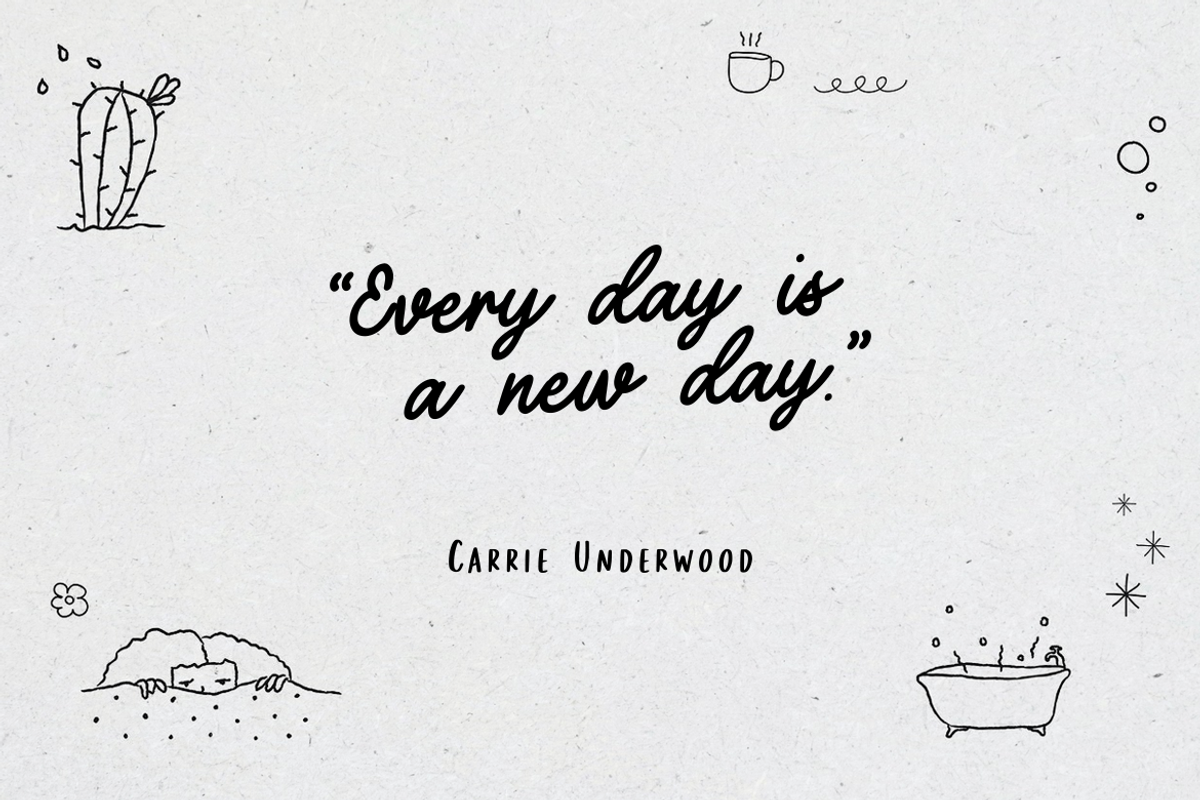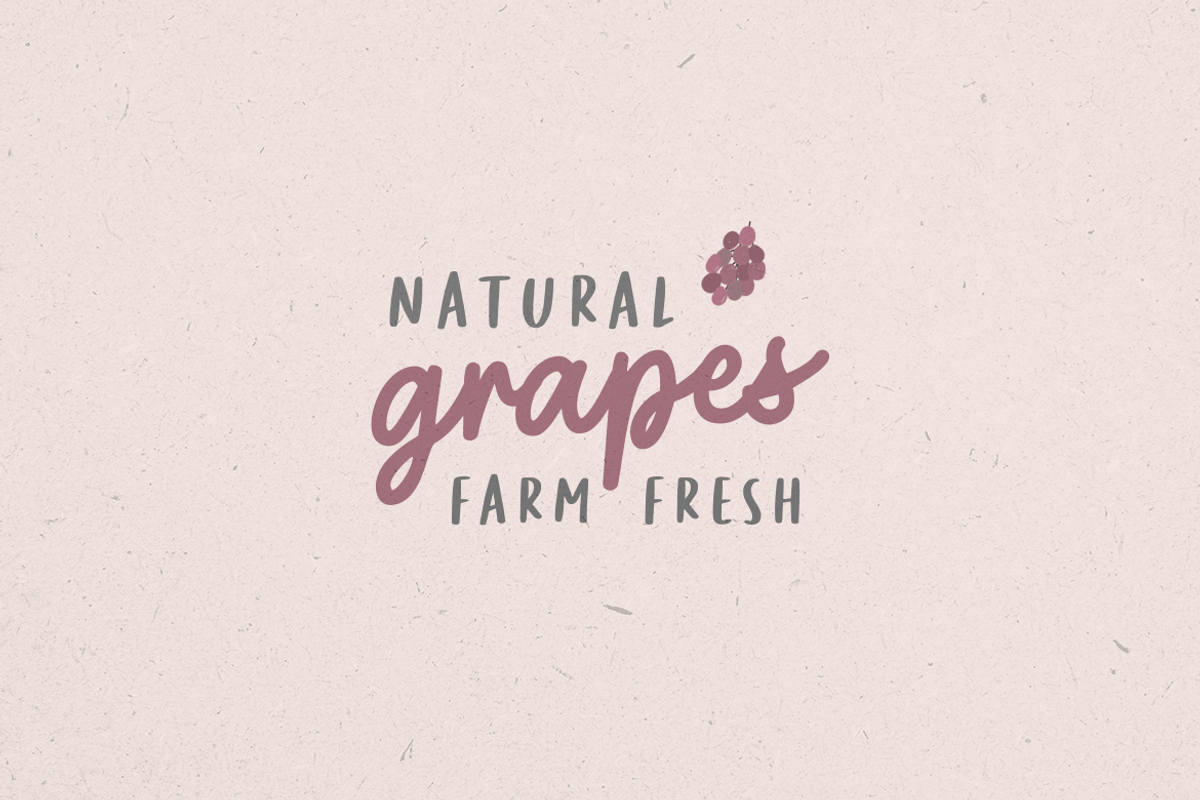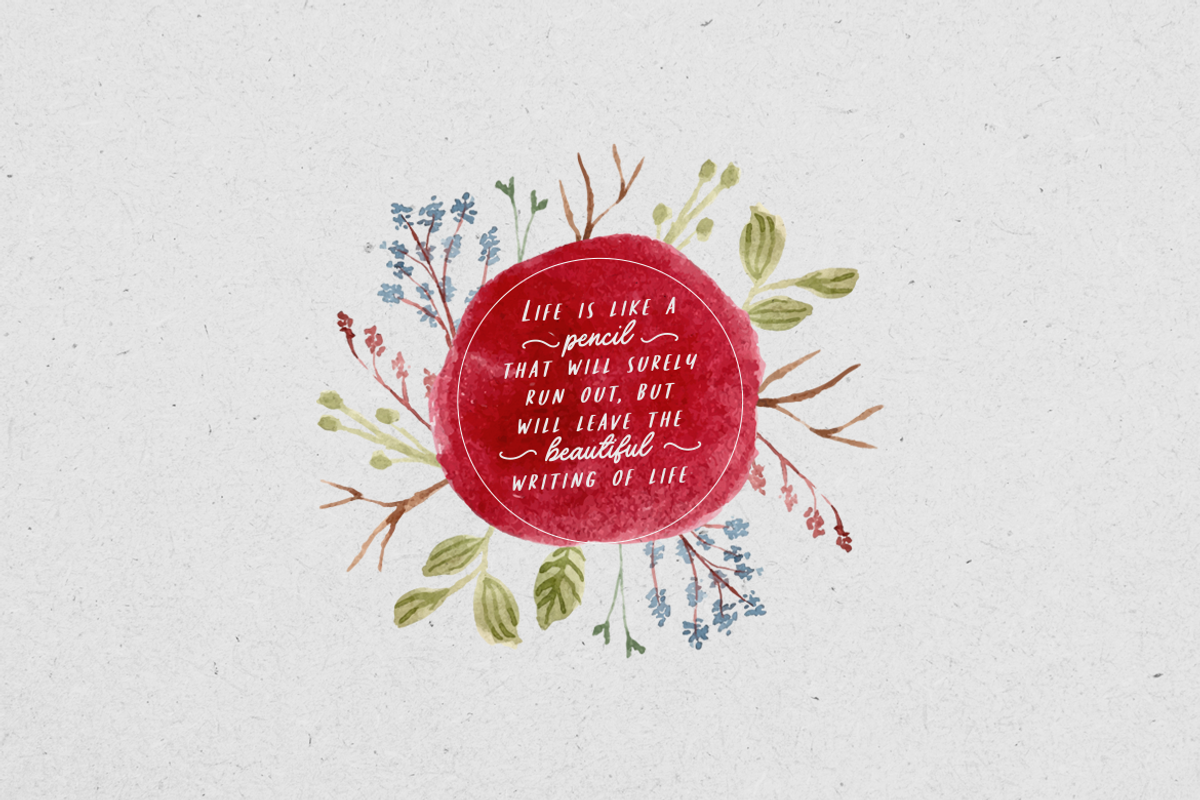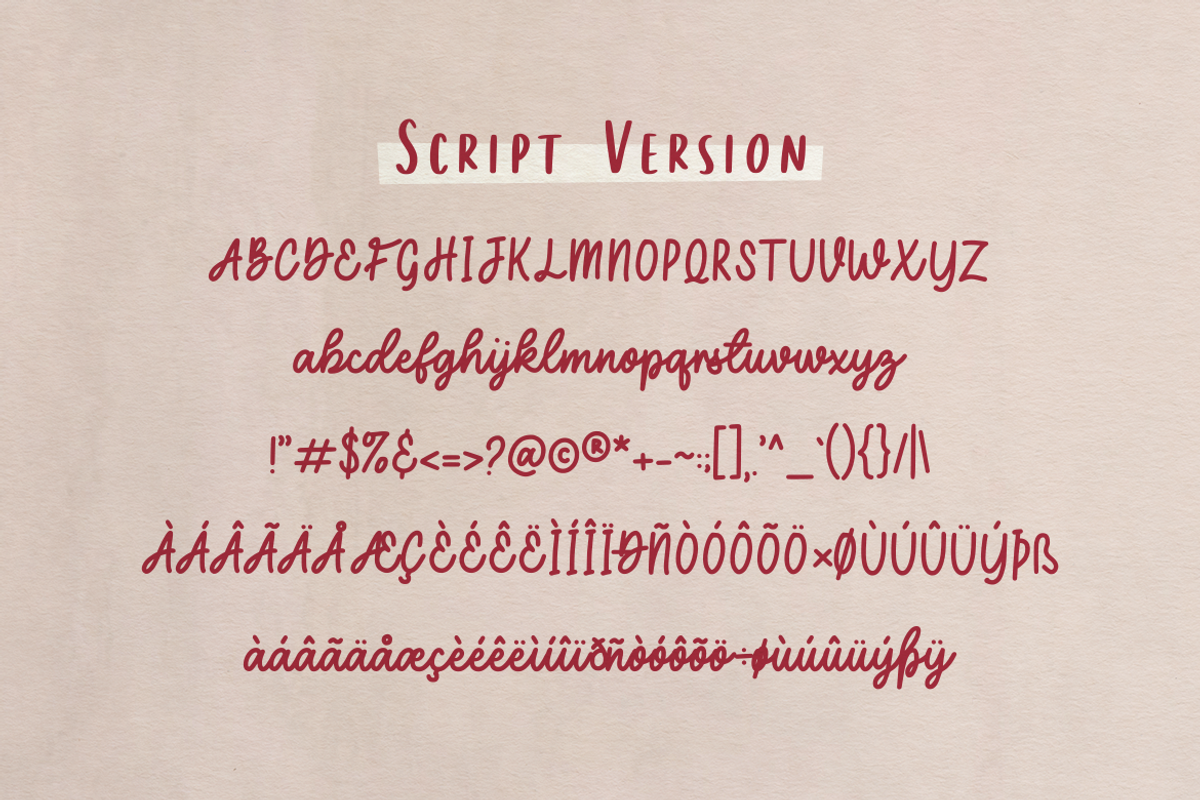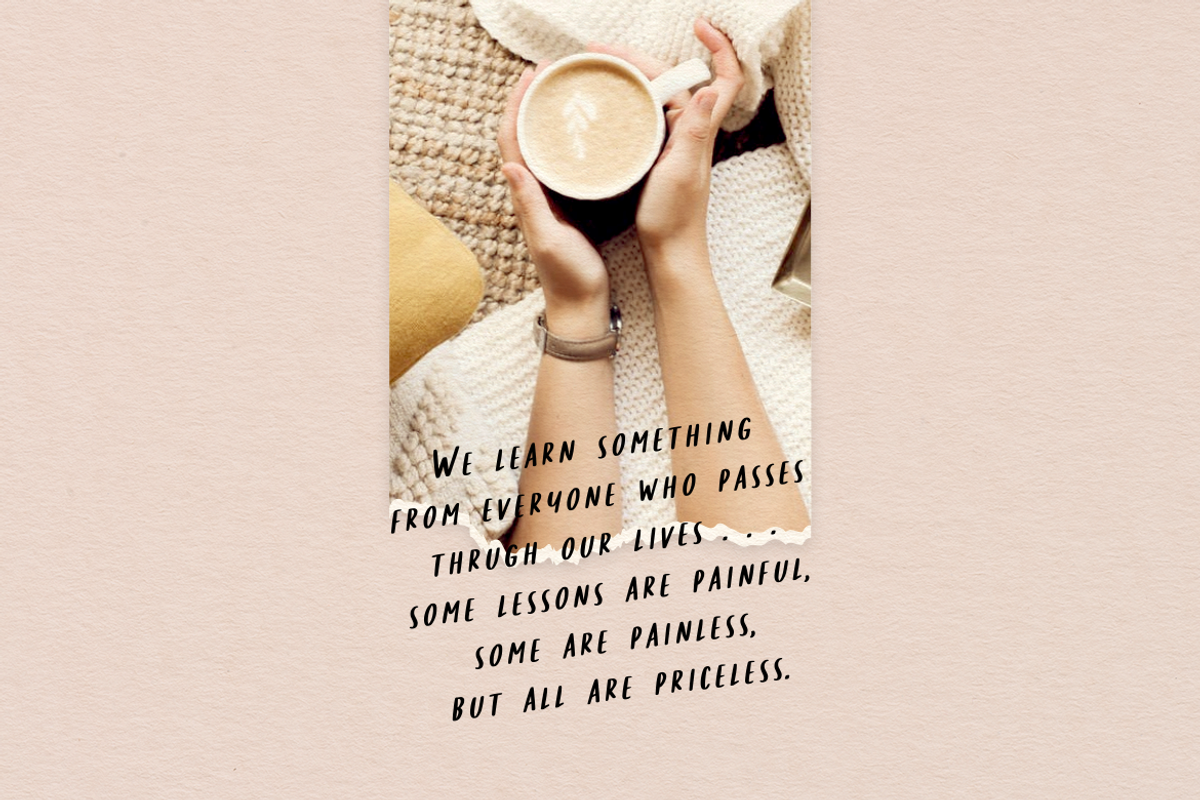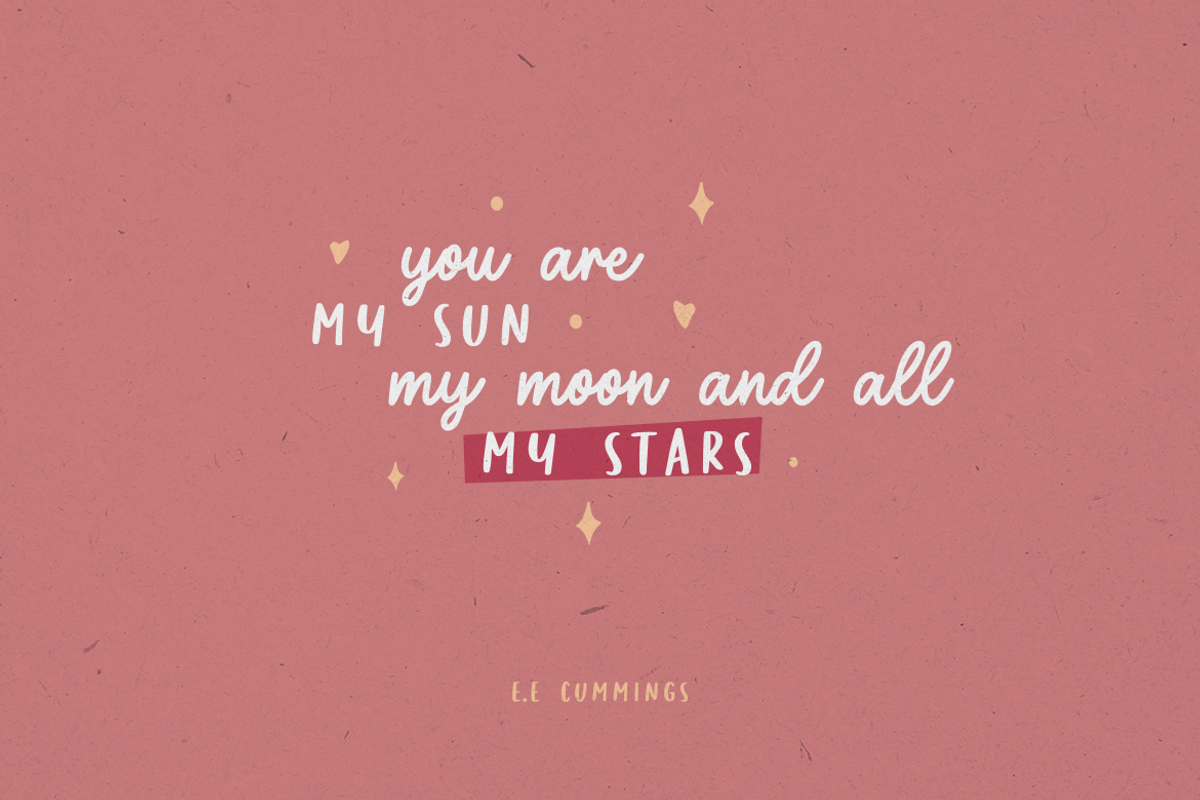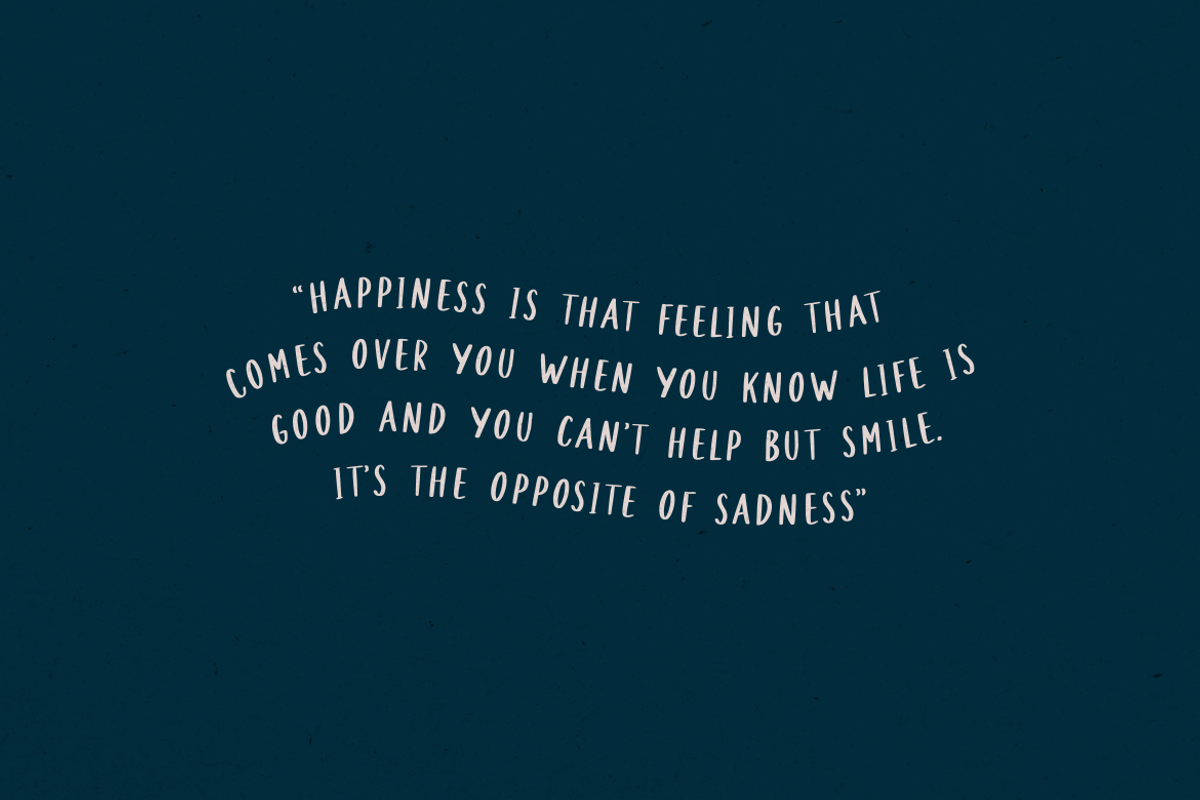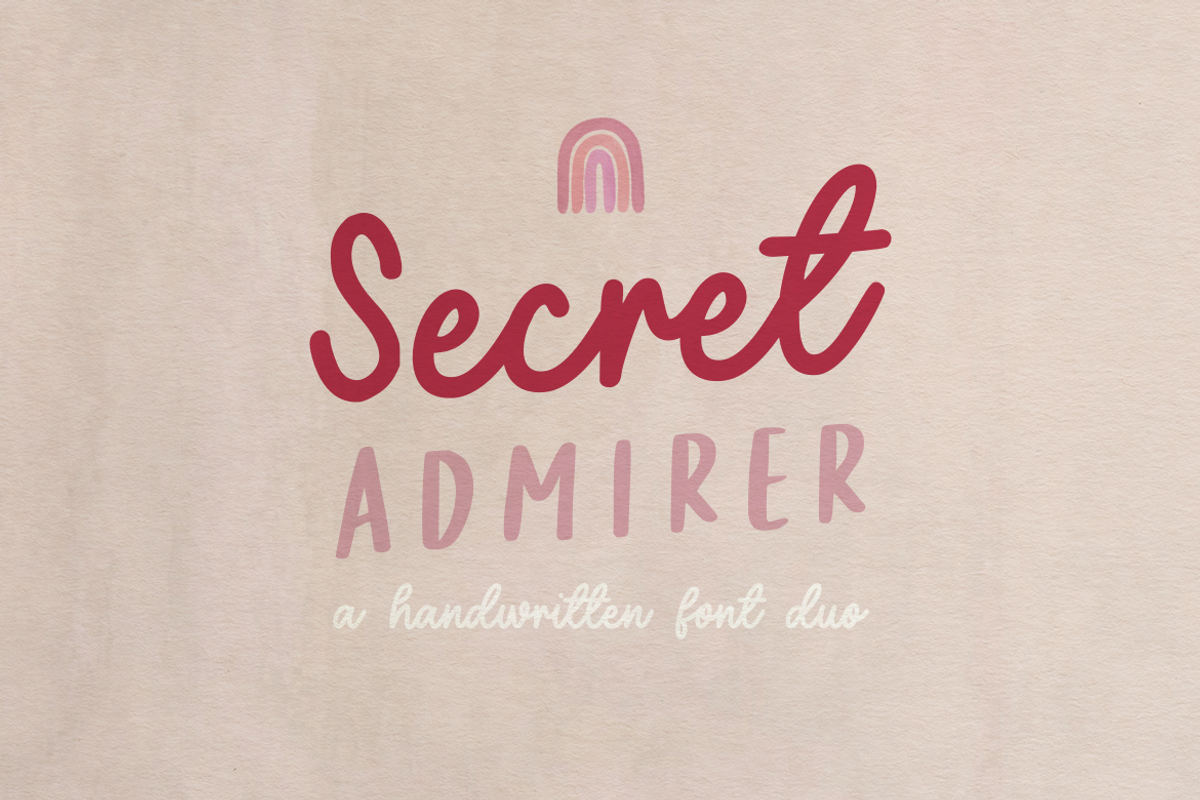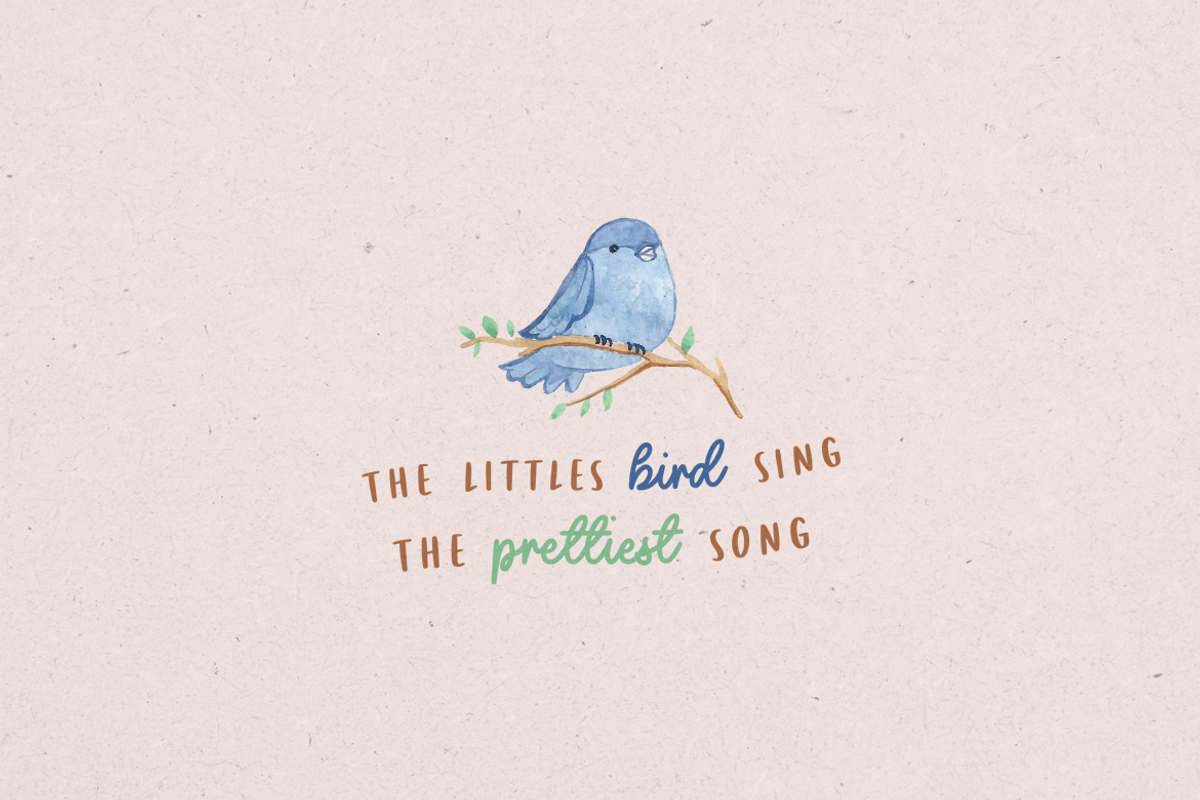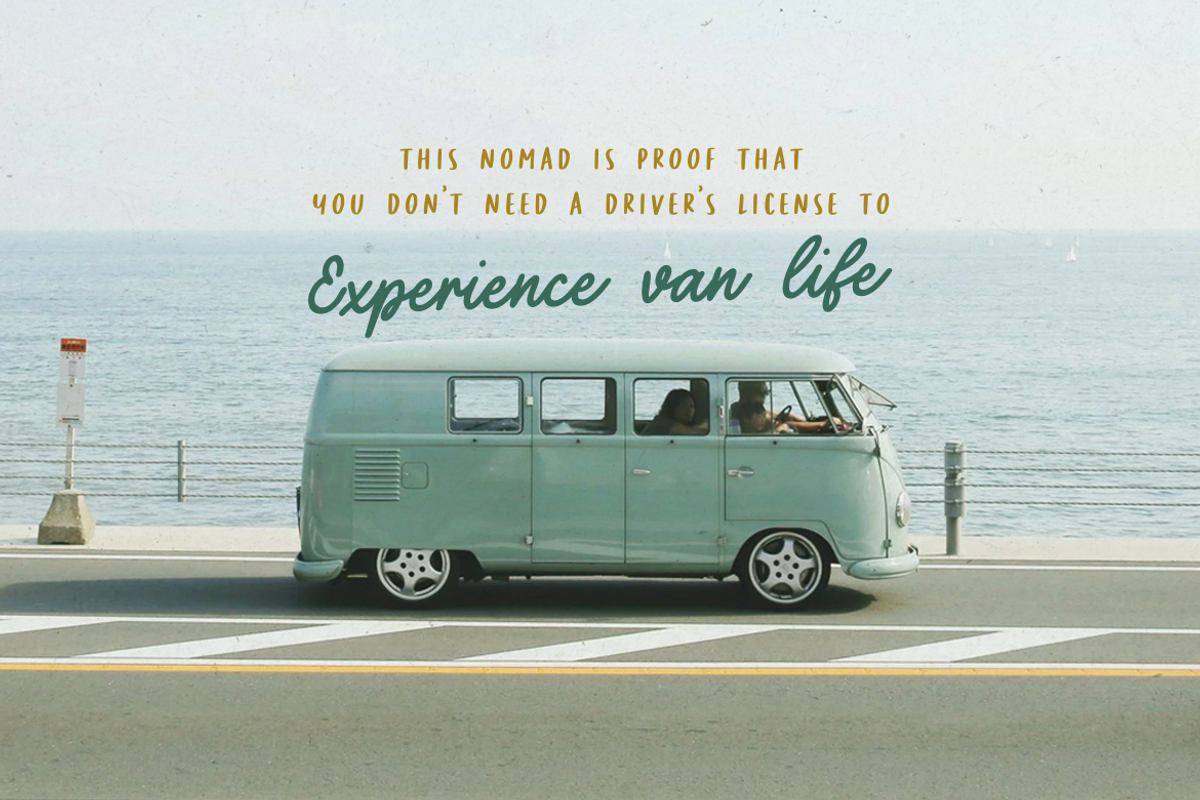
Secret Admirer handwritten font duo
Introducing our newest product from the natural handwritten font duo Secret Admirer!
Secret Admirer is a perfectly font duo for all your design project needs.
Create your perfect design with Secret Admirer. Also available in an italic version.
Try this font for all kinds of your business projects like: logo design, business card, mood board, greeting card, magazine ,headline, social media design, watermark and more, and it will all look perfect.
Multilingual support - share your message globally AÀÁÂÃÄÅCÇDÐEÈÉÌÍÎÏIÌÍÎÏNÑOØÒÓÔÕÖUÙÜÚÛWYÝŸÆßÞþ Encoded PUA characters